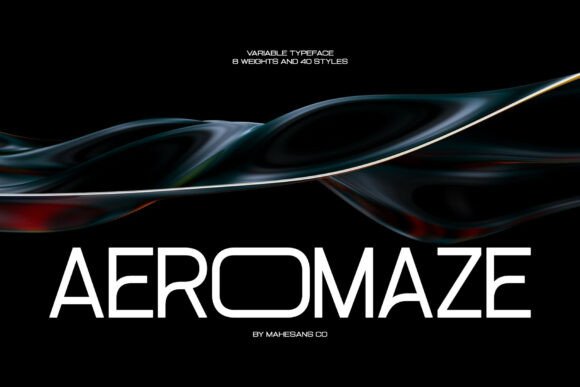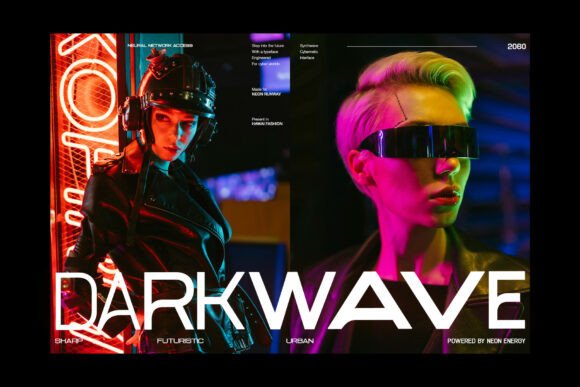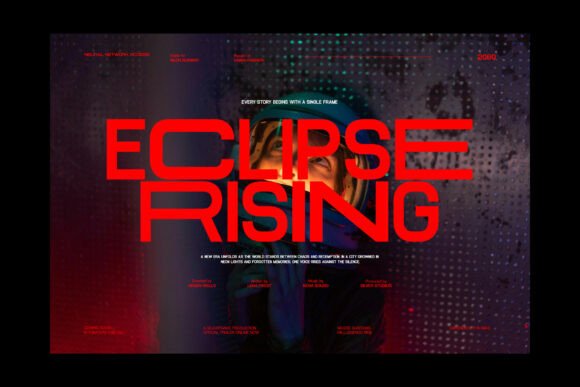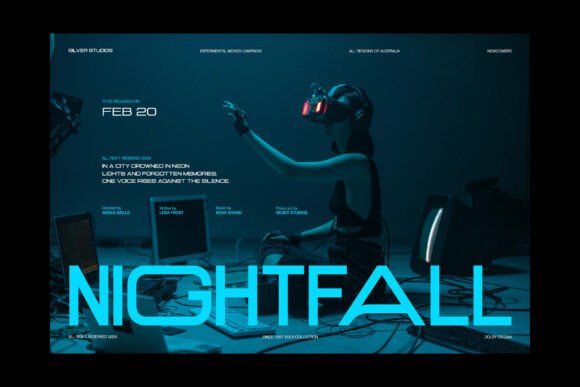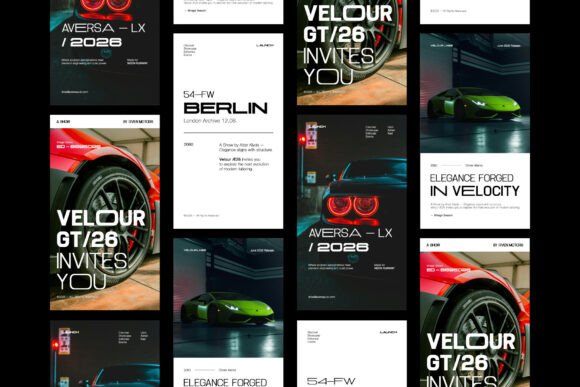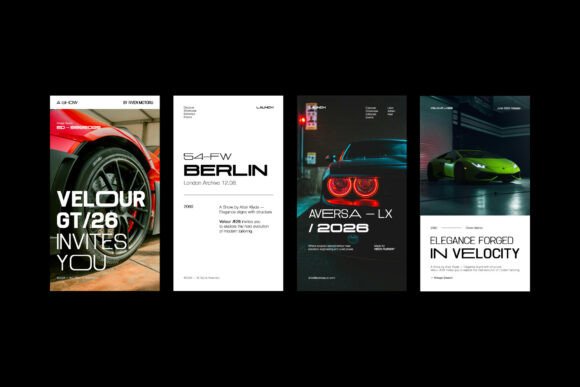
Introducing Aeromaze Font: The Futuristic Urban Sans Serif for Modern Creators
In the fast-paced world of digital design, having a font that can keep up with your creative vision is essential. Aeromaze, a futuristic urban sans serif font family, is engineered for creators who design ahead of the curve, not behind it. With its clean geometry, sharp terminals, and sleek technological aesthetic, Aeromaze delivers a powerful visual voice for projects that live in fast-moving digital environments.
Clean Geometry and Sleek Aesthetic
Aeromaze’s modern structure is crafted with precision, featuring clean lines, sharp terminals, and a futuristic feel that screams innovation. The font’s sleek aesthetic makes it perfect for designs that require a bold and edgy look, such as cinematic posters, tech branding, and fashion editorials. The clean geometry also ensures that the font remains legible, even at smaller sizes, making it ideal for UI-driven layouts and digital interfaces.
Versatility Across Various Design Applications
One of the standout features of Aeromaze is its versatility. This typeface adapts effortlessly across bold headlines and minimal compositions, making it suitable for a wide range of design applications. Whether you’re working on a cinematic poster, a tech brand’s logo, or a fashion editorial, Aeromaze can help you create a visually striking design that captures your audience’s attention.
Ideal for Contemporary Branding Systems and Esports Visuals
Aeromaze’s modern structure and sleek aesthetic make it an ideal choice for contemporary branding systems. The font’s precision and personality balance perfectly, creating a unique visual identity that can help brands stand out in a crowded market. Additionally, Aeromaze’s futuristic feel makes it a natural fit for esports visuals, music covers, and sci-fi themed content, where a bold and edgy look is often required.
- Clean Geometry: Aeromaze features clean lines and sharp terminals, making it perfect for designs that require a bold and edgy look.
- Sleek Technological Aesthetic: The font’s futuristic feel makes it suitable for designs that require a modern and innovative look.
- Versatility: Aeromaze adapts effortlessly across bold headlines and minimal compositions, making it suitable for a wide range of design applications.
- Legibility: The font’s clean geometry ensures that it remains legible, even at smaller sizes.
- Precision and Personality: Aeromaze’s modern structure balances precision and personality, making it ideal for contemporary branding systems.
Design Applications for Aeromaze
Aeromaze is suitable for a wide range of design applications, including:
- Cinematic Posters: Aeromaze’s bold and edgy look makes it perfect for cinematic posters that require a striking visual identity.
- Tech Branding: The font’s futuristic feel makes it a natural fit for tech branding, where a modern and innovative look is often required.
- Fashion Editorials: Aeromaze’s sleek aesthetic makes it suitable for fashion editorials that require a clean and sophisticated look.
- UI-Driven Layouts: The font’s legibility and clean geometry make it ideal for UI-driven layouts and digital interfaces.
- Music Covers: Aeromaze’s bold and edgy look makes it perfect for music covers that require a striking visual identity.
- Sci-Fi Themed Content: The font’s futuristic feel makes it a natural fit for sci-fi themed content, where a bold and edgy look is often required.
- Product Packaging: Aeromaze’s modern structure and sleek aesthetic make it suitable for product packaging that requires a clean and sophisticated look.
- Immersive Social Media Campaigns: The font’s versatility and legibility make it ideal for immersive social media campaigns that require a bold and edgy look.
| Author | Mahesans Co |
In conclusion, Aeromaze is a powerful and versatile font family that is engineered for modern creators who design ahead of the curve. With its clean geometry, sharp terminals, and sleek technological aesthetic, Aeromaze delivers a powerful visual voice for projects that live in fast-moving digital environments. Whether you’re working on a cinematic poster, a tech brand’s logo, or a fashion editorial, Aeromaze is the perfect choice for designers and crafters who want to create a visually striking design that captures their audience’s attention.